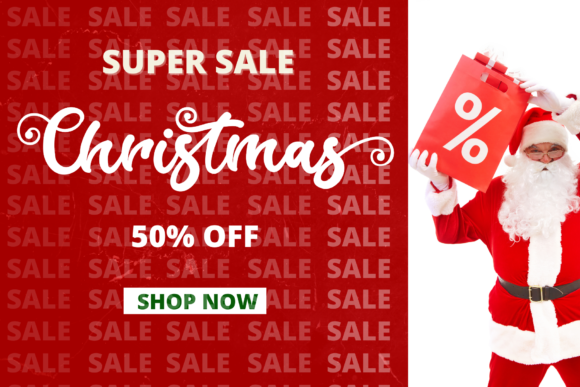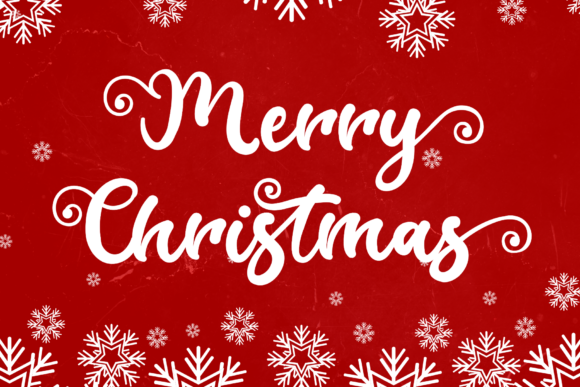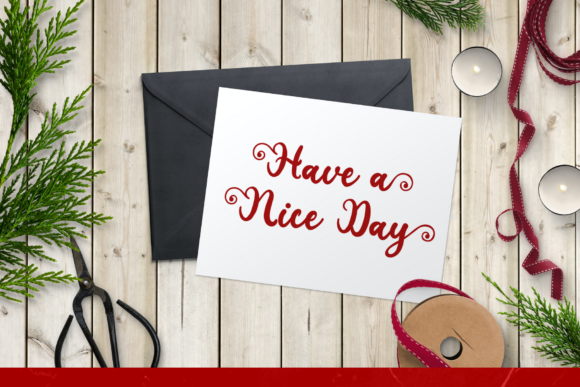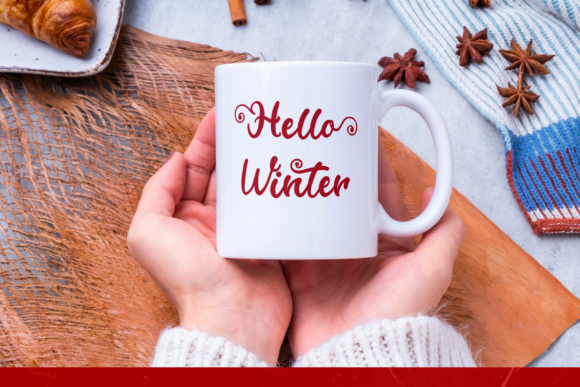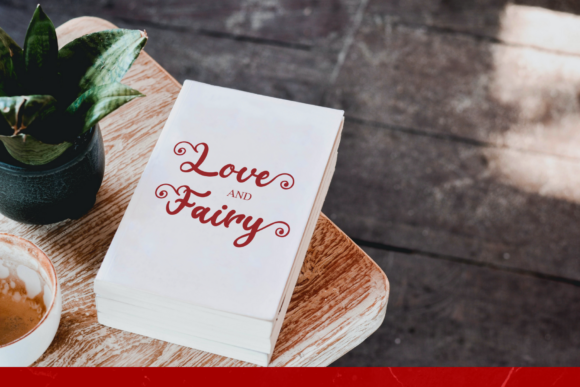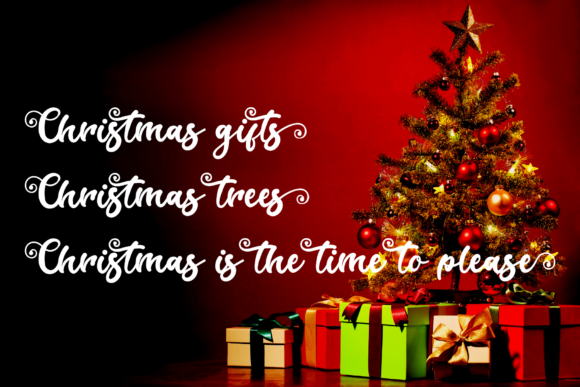
The Magic of Christmas Spirit Font
It’s the most wonderful time of the year – the moment when creativity sparks, and festive cheer fills the air. You’re rummaging through your stash of craft supplies, searching for the perfect font to add a touch of whimsy to your holiday cards or gift tags. And then, it hits you – the perfect font to capture the essence of the season.
Enter Christmas Spirit Font, a stunning handwritten font that exudes elegance and sophistication. Designed to bring a dash of festive flair to your designs, this beautiful font is perfect for letterheads, titles, and stationery. With its PUA encoding, you’ll have access to all the glyphs and swashes you need to create truly special pieces.
Whether you’re a seasoned designer or a crafty hobbyist, Christmas Spirit Font is a valuable addition to your toolkit. Its versatility and charm make it an ideal choice for any project that requires a touch of Christmas magic.
Christmas Spirit Font Key Features
- Unique Characteristics: This festive font features bold, cursive letters with a mix of uppercase and lowercase characters, perfect for adding a touch of holiday cheer to your designs.
- Special Characters: Includes a range of special characters, including ornaments, snowflakes, and other festive icons, to help you add a personal touch to your designs.
- Font Style: Available in a range of font styles, including Regular, Italic, Bold, and Bold Italic, giving you flexibility in your design choices.
Christmas Spirit Font Review
I recently had the chance to work with the “Christmas Spirit Font” and here’s my honest take on it.
- The font is incredibly festive and captures the essence of the holiday season.
- The variety of characters and glyphs included in the font is impressive, making it perfect for designing holiday-themed materials.
- The font is highly customizable, allowing users to adjust the size, color, and style to suit their needs.
Limitsations ⚠️
- The font is not as versatile as other fonts and may not be suitable for use outside of holiday-themed projects.
- The font’s script and italic styles can be a bit inconsistent, which may affect readability in certain situations.
The “Christmas Spirit Font” is a great choice for anyone looking to add a touch of holiday cheer to their designs. While it may have some limitations, the font’s festive feel and customization options make it a great addition to any designer’s toolkit.
Getting the Most Out of the Christmas Spirit Font
For the best results, pair the Christmas Spirit Font with festive colors and graphics. Experiment with different font sizes and styles to add visual interest. Consider using the font for headings, titles, or emphasis.
The Christmas Spirit Font is ideal for holiday-themed projects, such as greeting cards, party invitations, and social media graphics. It’s also a great choice for winter-themed blogs, websites, and advertising materials.